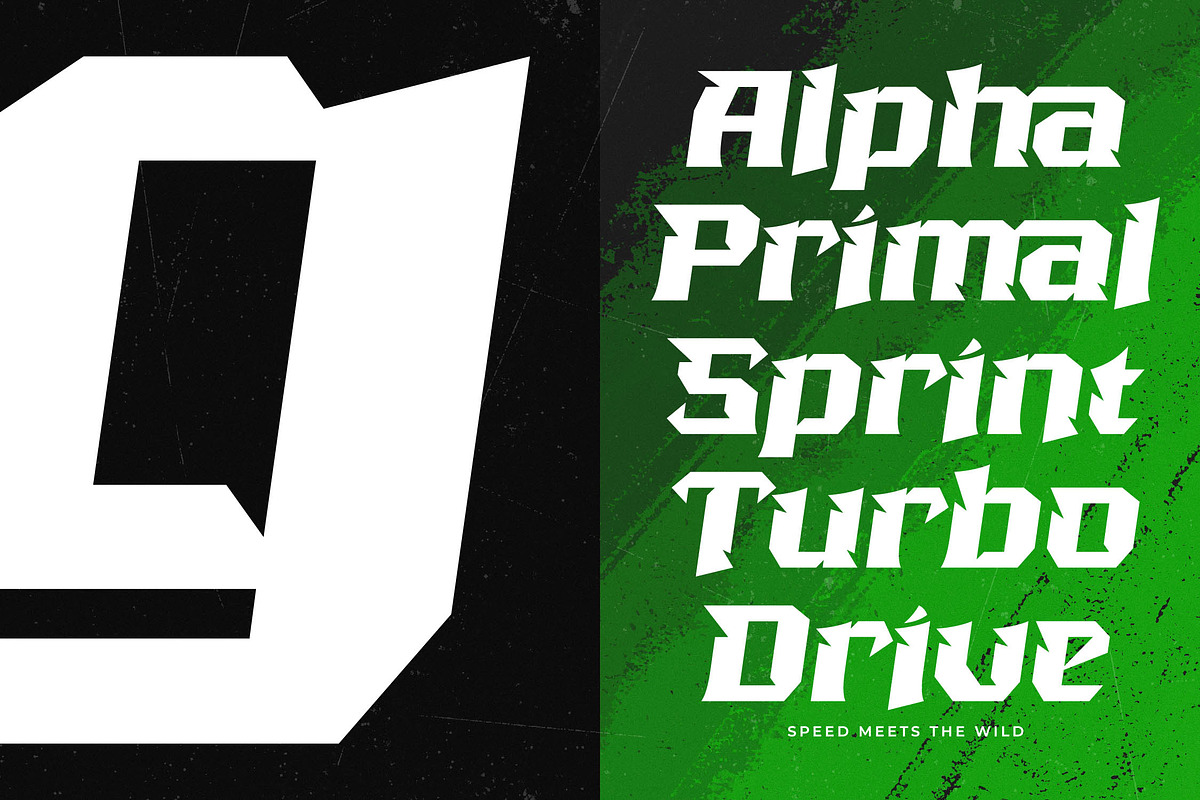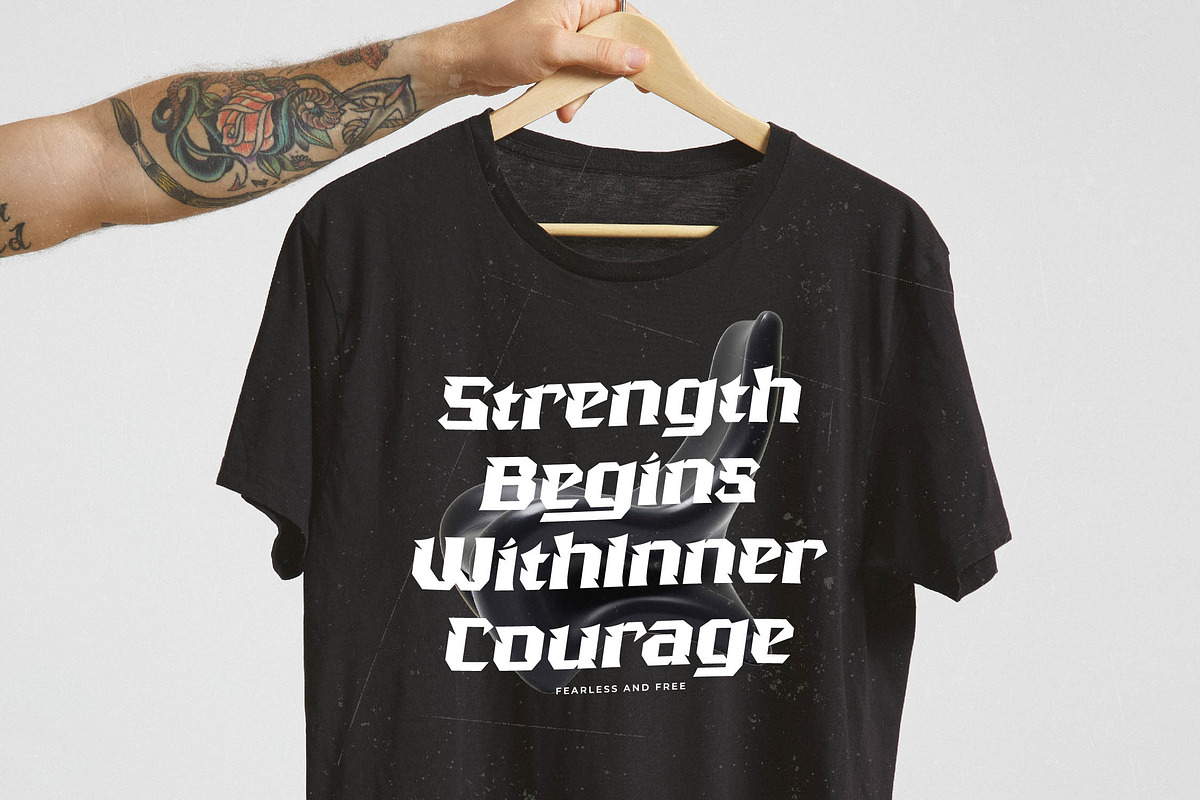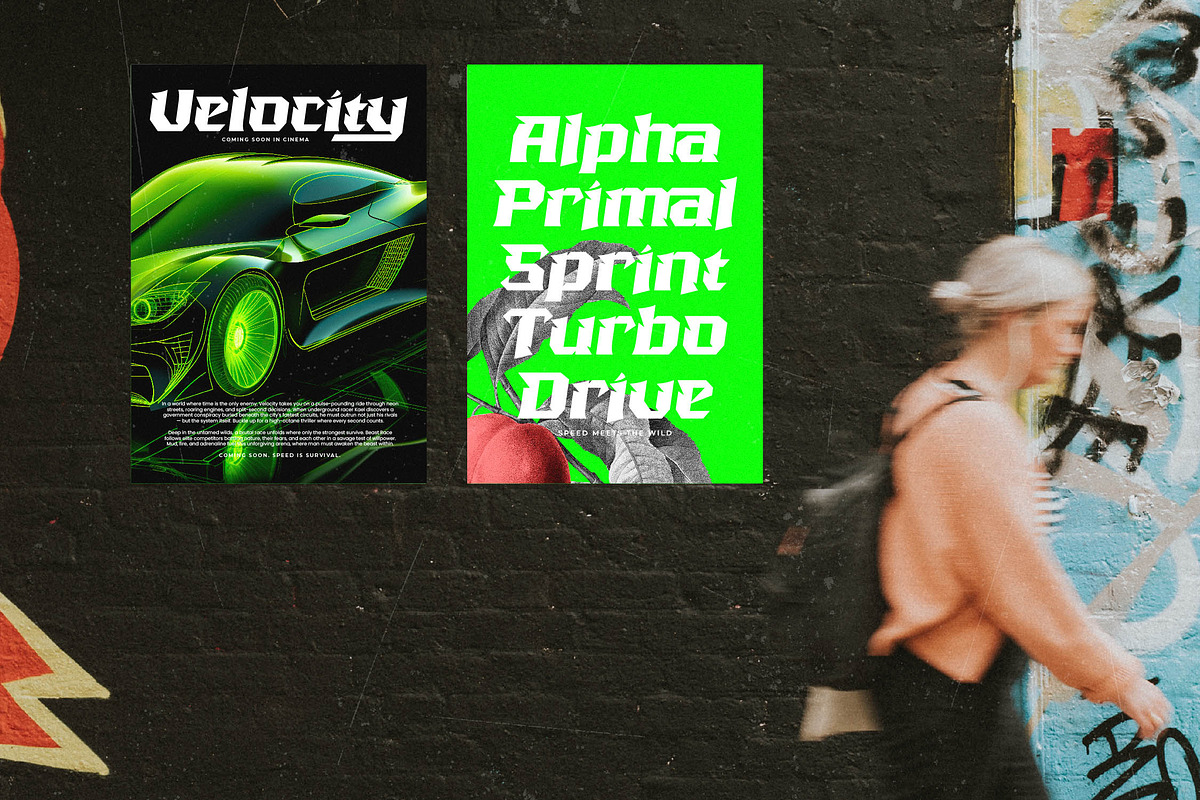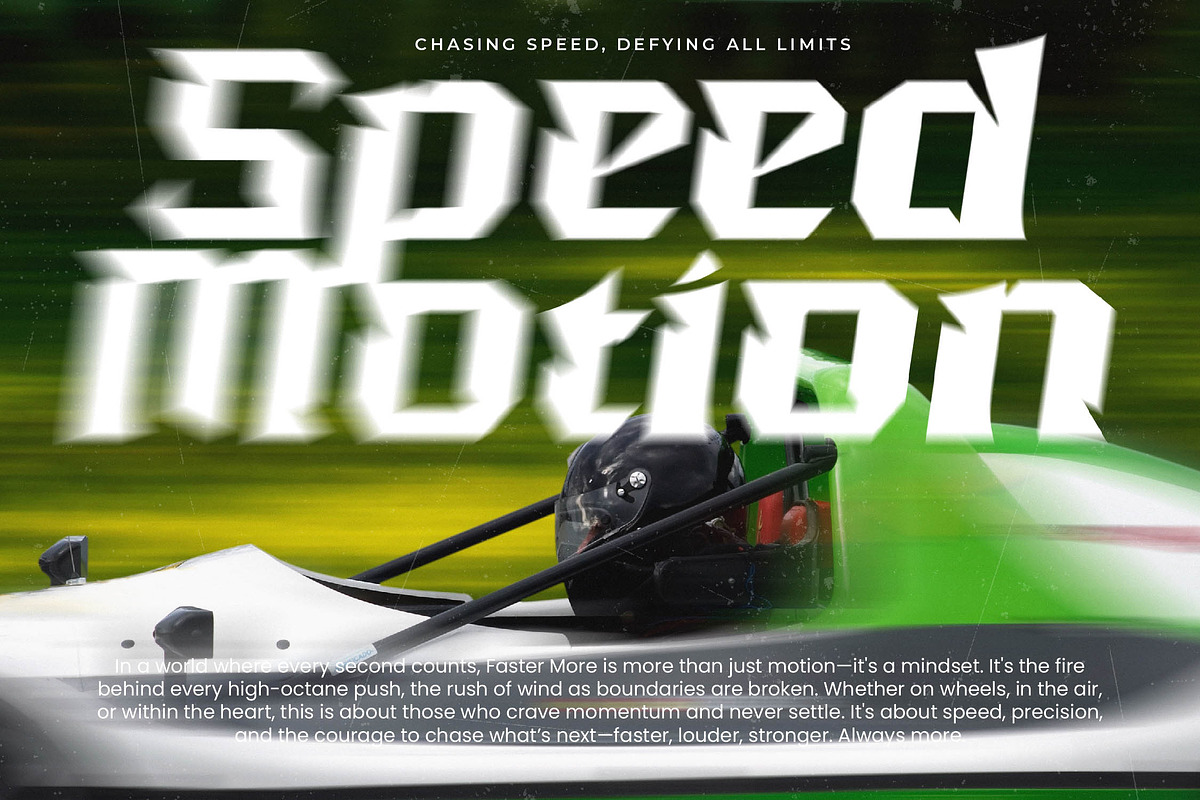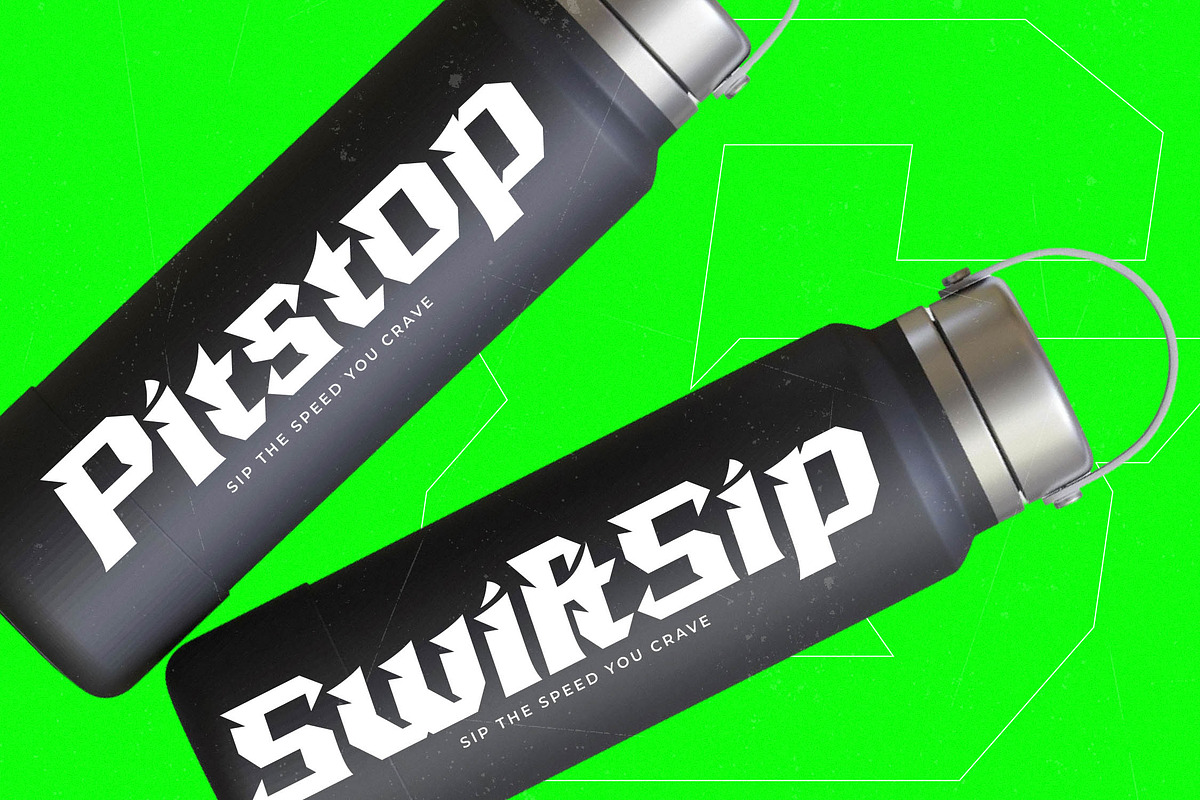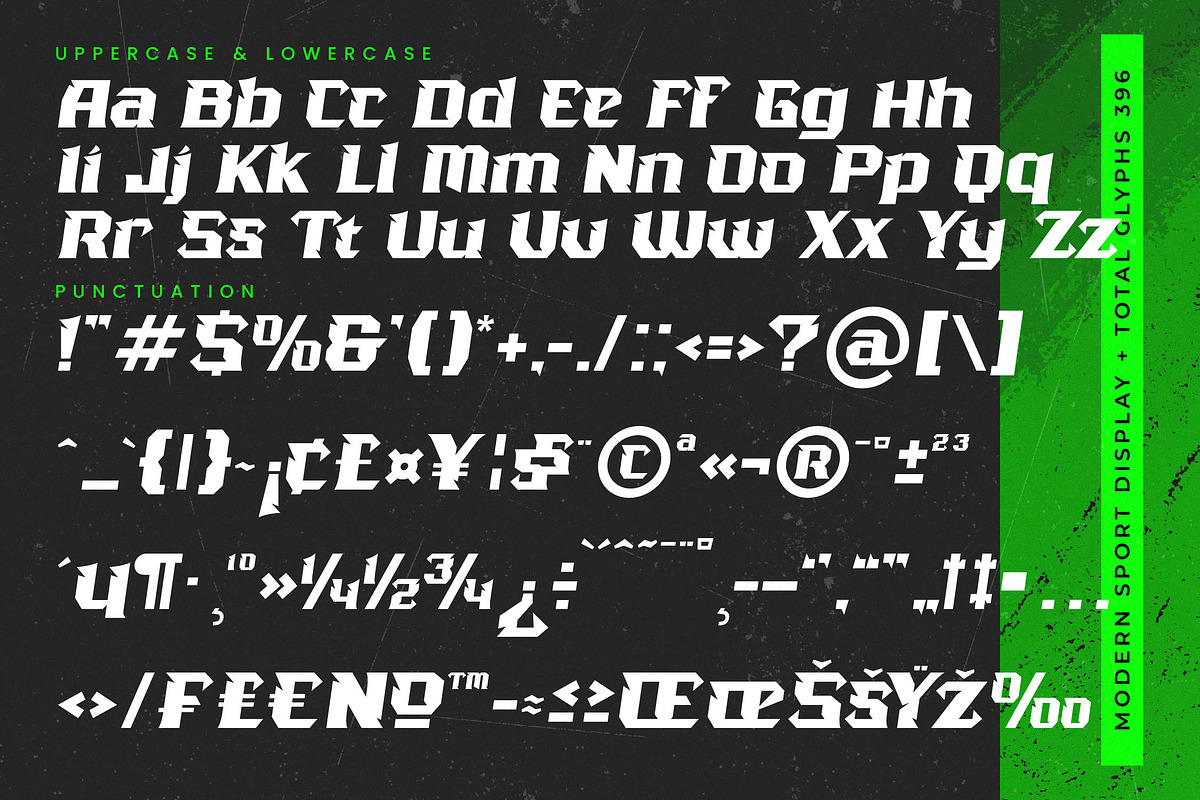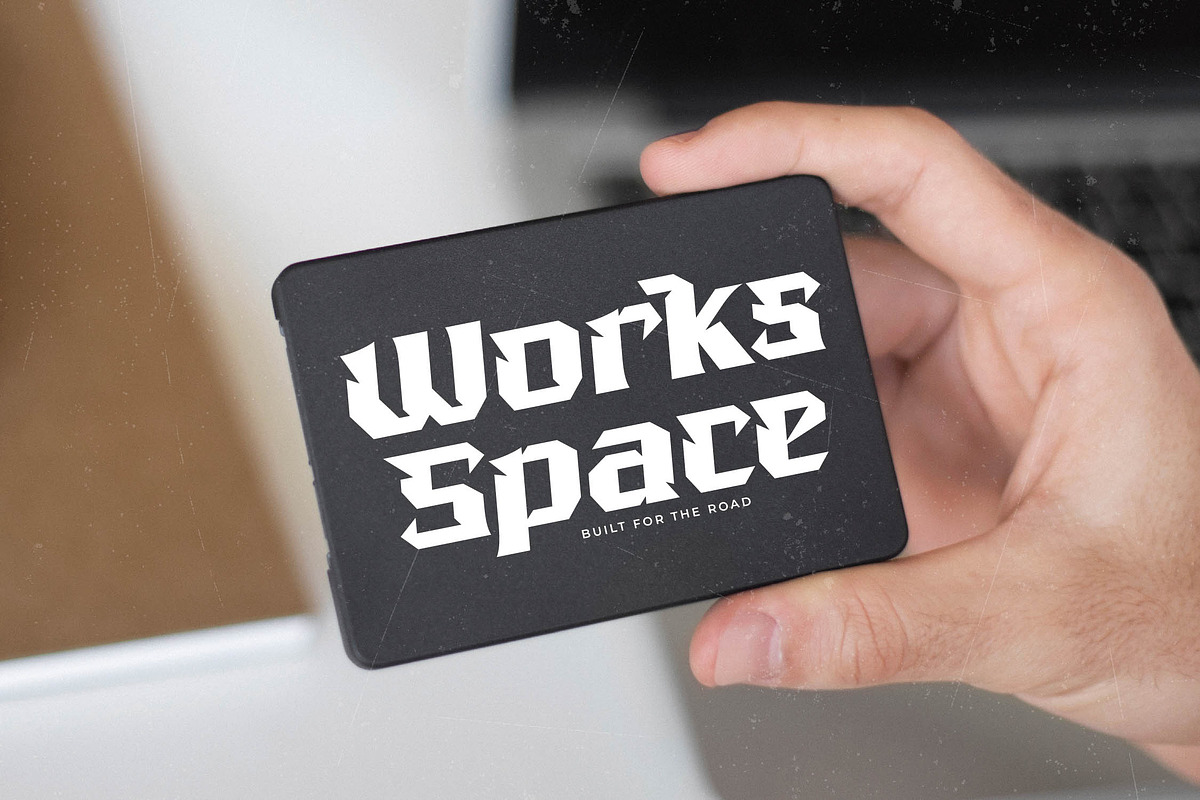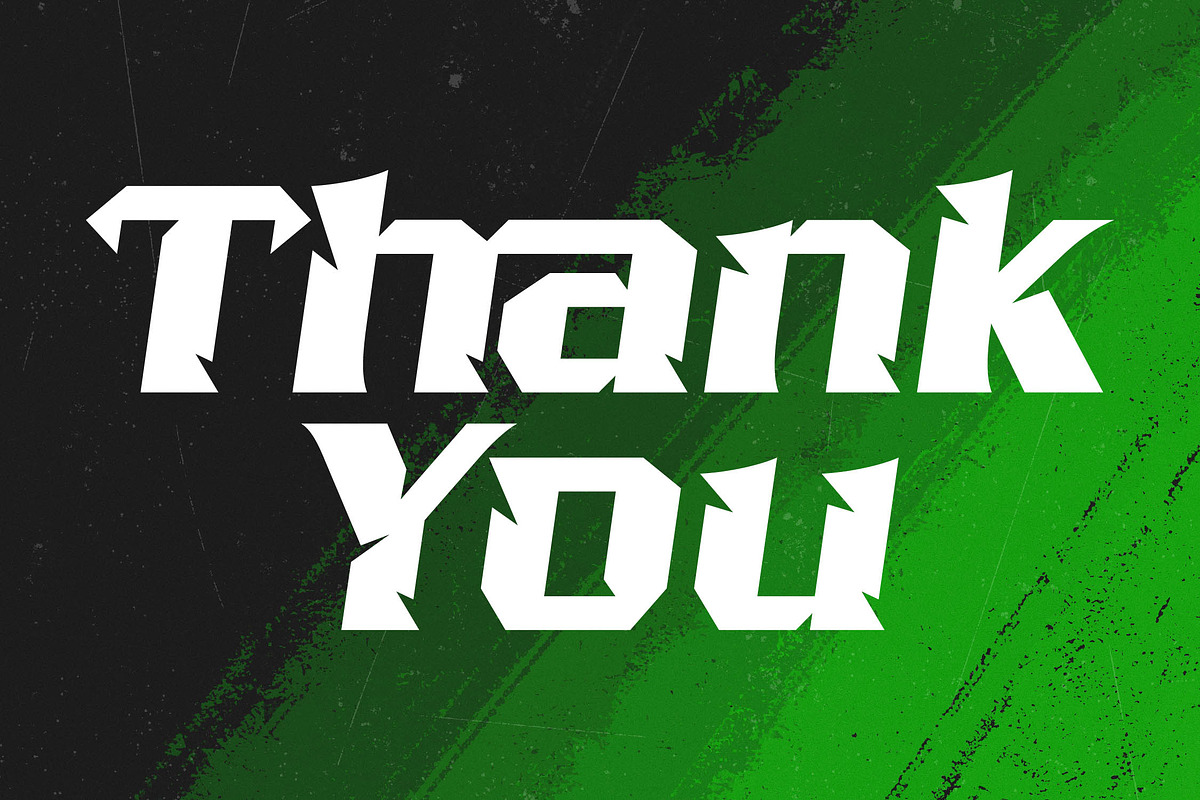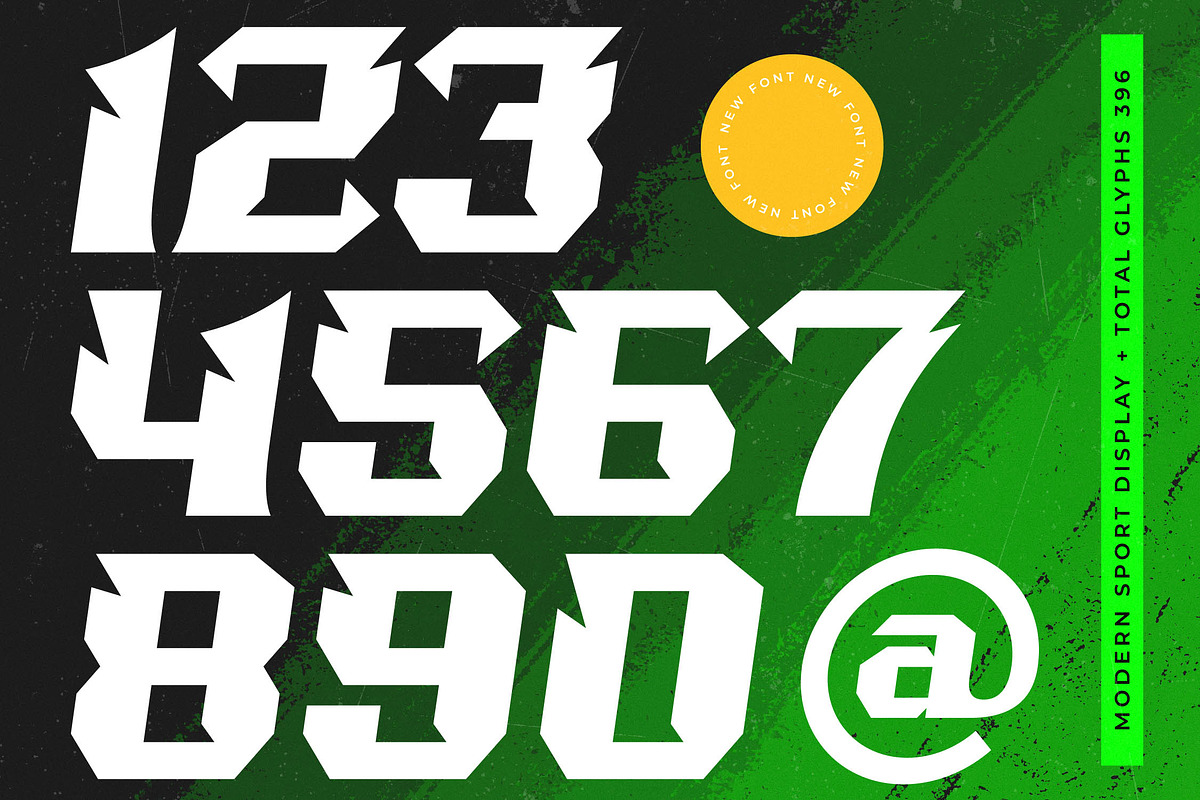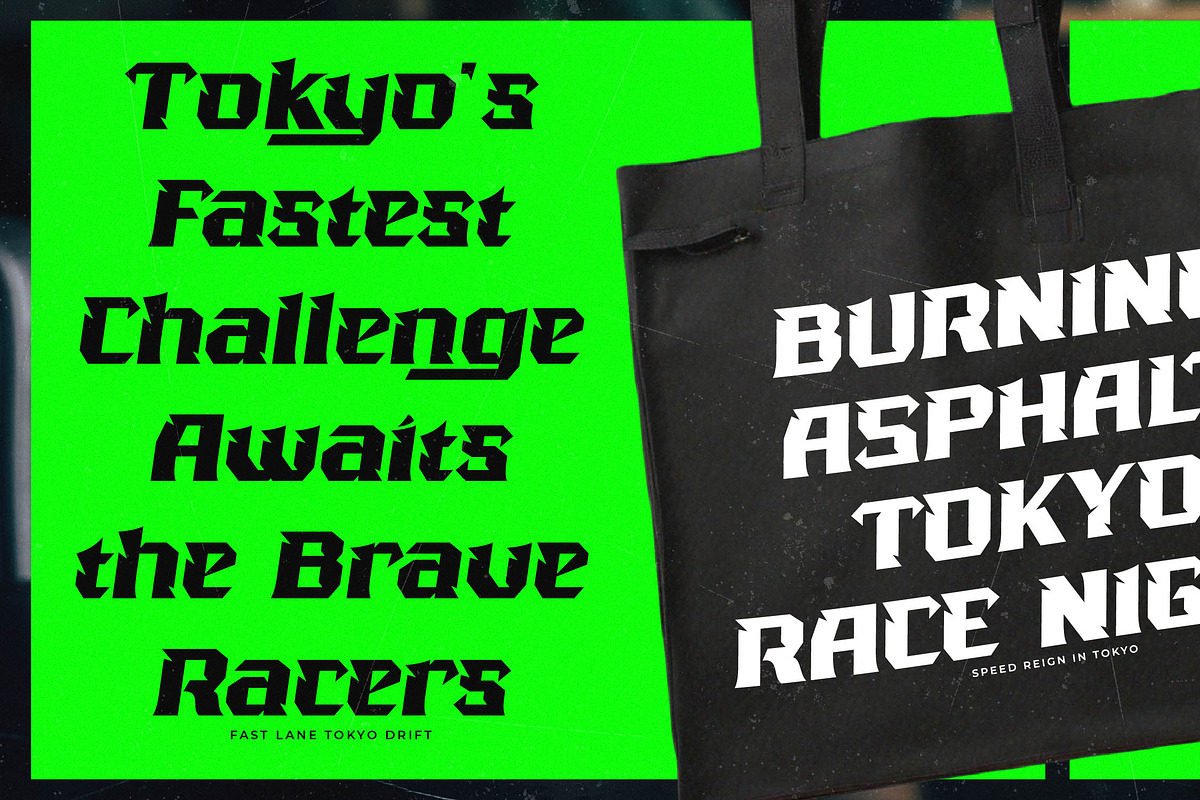
Beast Kings Modern Sport Display
Unleash the raw power of your creative projects with Beast Kings, a font engineered for champions and high-performance design. This typeface stands at the intersection of professional precision and untamed energy, ensuring your message commands attention in any competitive arena.
Inspired by the high-octane atmosphere of professional motor racing and the sharp lines of modern streetwear, this typeface captures a sense of relentless motion. Each character is crafted with predatory angles and a heavy weight that evokes the strength of a titan, making it perfect for brands that refuse to blend in.
The modern serif display qualities of this typeface provide a unique luxury typography feel that maintains an aggressive edge, offering a high-contrast serif look for maximum visibility. It functions as a definitive editorial font for headlines that need to roar, delivering an immediate and lasting branding impact.
Aligning with the current modern serif trend, this typeface pushes the boundaries of traditional editorial display fonts by incorporating sharp, blade-like terminals. It is a premier example of character-driven typography that meets the demands of today's fast-paced visual culture while maintaining a timeless sense of dominance.
Engineered for versatility, this typeface is the ultimate tool for logo design in the sports sector and high-end branding for activewear. It excels in editorial spreads, bold packaging concepts, and even adds a rebellious spirit to wedding stationery or high-street fashion campaigns that require a touch of grit.
This comprehensive package features a vast library of ligatures and alternates that allow for custom-tailored lettering and unique typographic compositions. With extensive multilingual support and a full set of international characters, plus decorative swashes, it ensures your brand's voice is heard clearly across the globe.